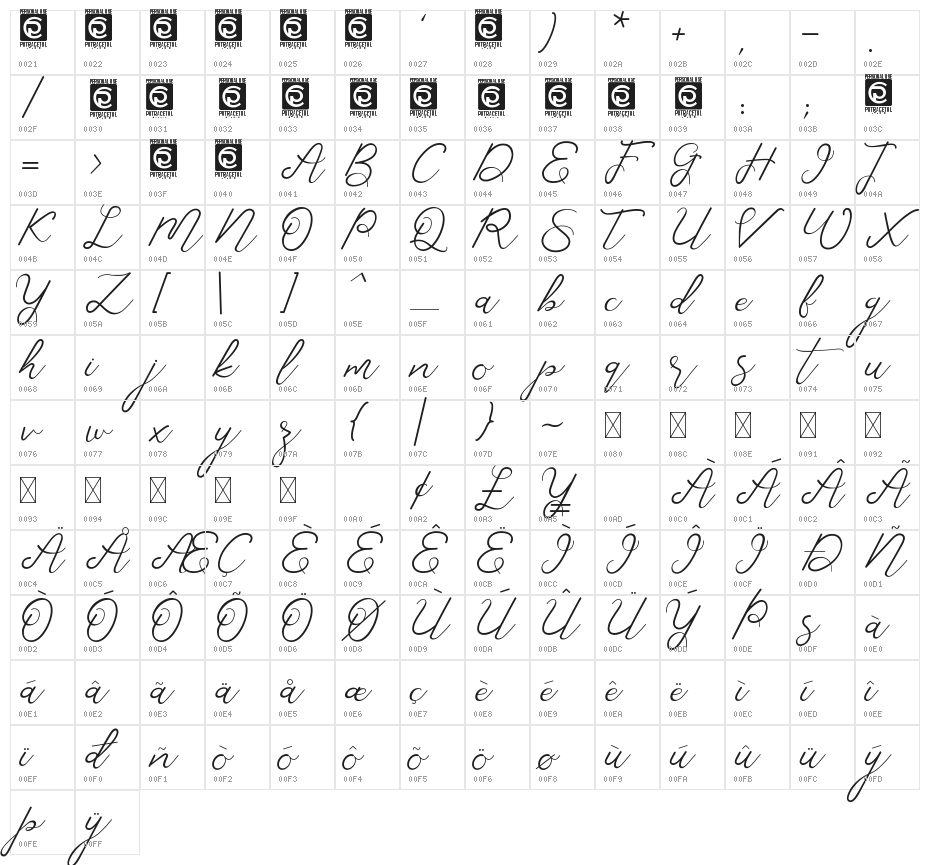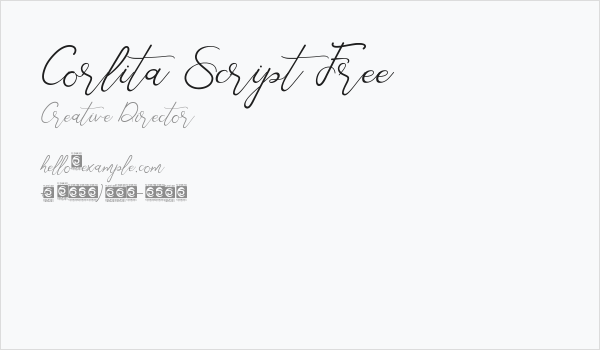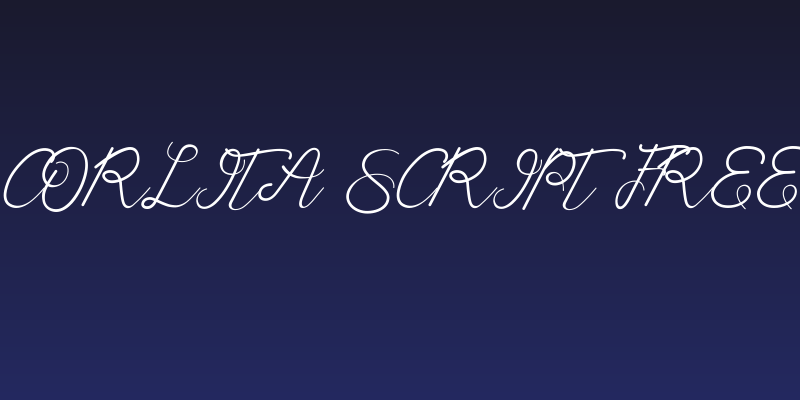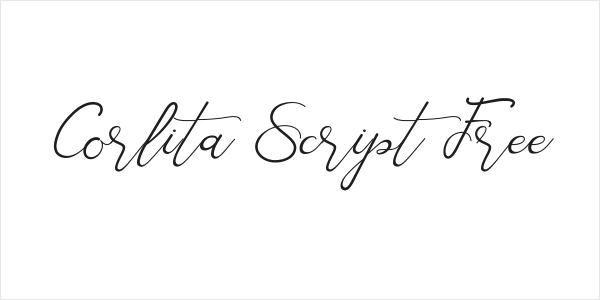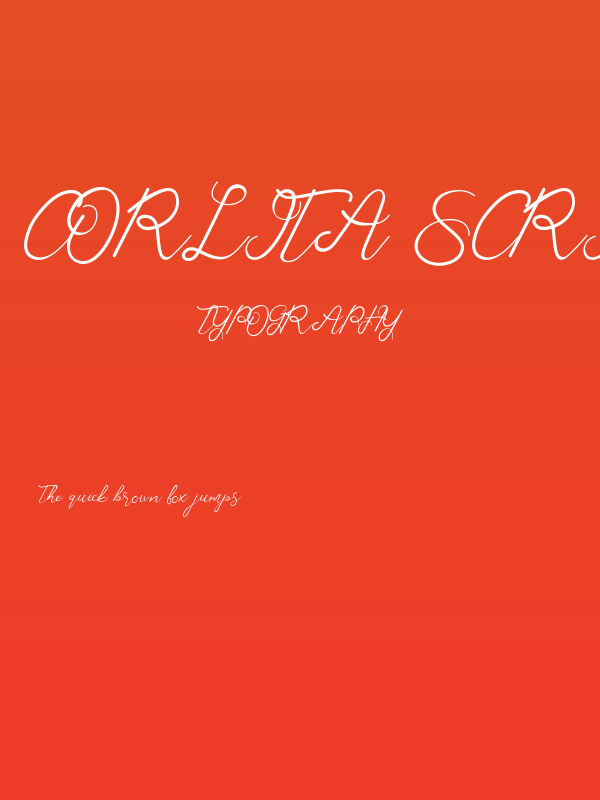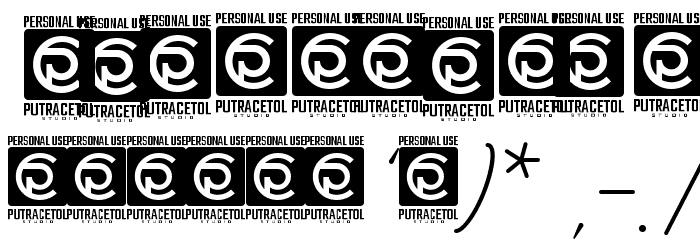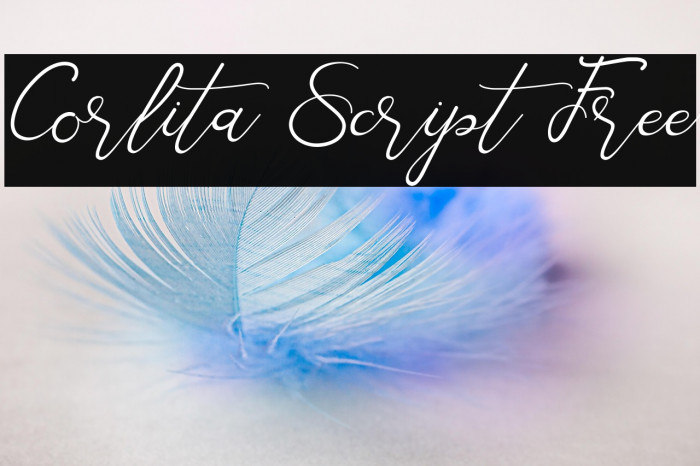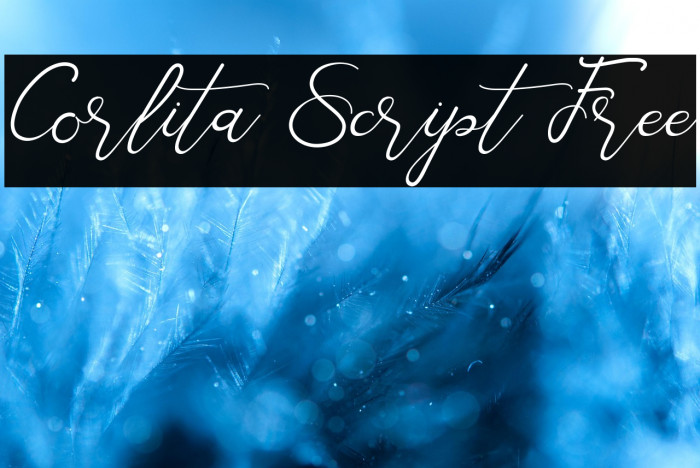
Corlita Script Free Font
Corlita Script Free Description
This font features an elegant and flowing script style, characterized by its smooth, cursive letterforms that connect seamlessly. The uppercase letters are tall and graceful, with a slight slant that adds a sense of motion and fluidity. The lowercase letters are equally stylish, with loops and swirls that enhance the overall aesthetic. The font maintains a consistent stroke width, giving it a balanced and harmonious appearance. It is well-suited for creating a sophisticated and personal touch in design projects.
| Overall Style | Elegant, Sophisticated |
| Proposed Projects | Ideal for wedding invitations, greeting cards, branding, and elegant packaging. |